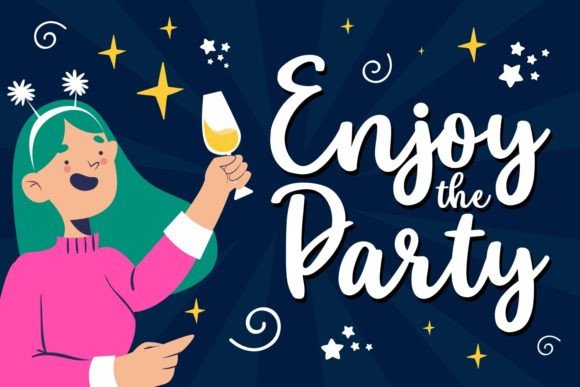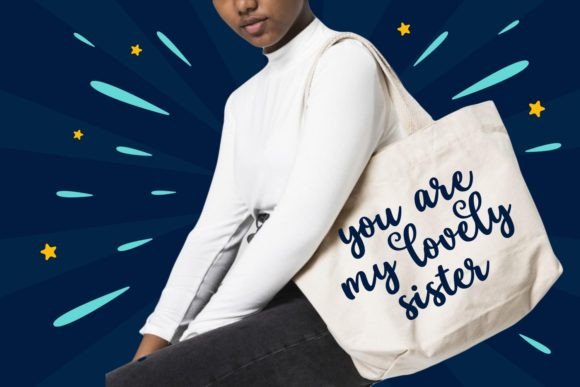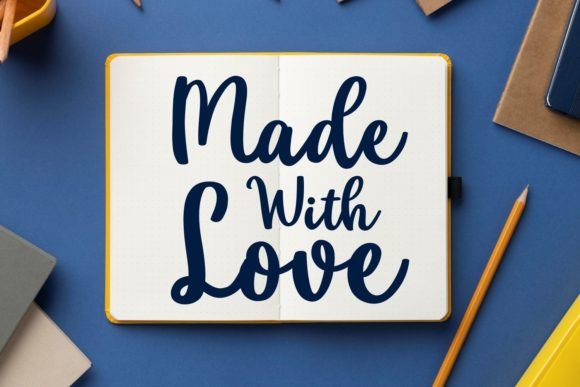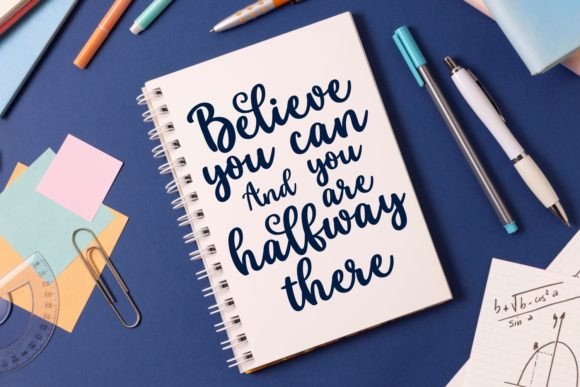
A Cheerful and Elegant Handwritten Font
New Year Holiday Font is a cheerful and elegant handwritten typeface, designed to bring a festive and joyful touch to your special occasion designs. Whether you’re creating invitations, gifts, posters, or packaging, this font brings a sense of excitement and elegance to your creative projects. Its whimsical and artistic style makes it ideal for celebrations such as New Year’s Eve, holidays, and special events, helping you design materials that feel personalized and memorable.
Perfect for Invitations and Event Stationery
For invitations and event stationery, the New Year Holiday Font adds a joyful and refined feel to your designs. Whether you’re designing wedding invitations, holiday cards, or party invites, this font brings a personalized touch that sets the mood for a celebratory event. Its handwritten style and festive nature make it ideal for invitations, flyers, RSVP cards, and thank-you notes. With its elegant flair, the New Year Holiday Font ensures your event materials stand out, capturing the festive spirit of the occasion.
Great for Flyers, Posters, and Promotional Materials
For flyers, posters, and promotional materials, the New Year Holiday Font is a fantastic option to add a fun, eye-catching appeal to your designs. Whether you’re creating promotional holiday flyers, event posters, or product packaging, this font helps convey a sense of excitement and celebration. Its stylish brush strokes and festive vibe make it perfect for promoting holiday events, special sales, or seasonal offers. The New Year Holiday Font ensures your designs feel uplifting and memorable, catching the attention of your audience.
Ideal for Gifts and Packaging
The New Year Holiday Font is perfect for gift designs and packaging. Whether you’re designing gift tags, gift wrap, or holiday product packaging, this font adds a personalized and cheerful touch to your creations. The bold and playful nature of the font ensures your packaging feels both unique and festive, perfect for holiday gifts or seasonal products. The New Year Holiday Font gives your gifts a charming and elegant appearance that helps convey your brand’s personality and the celebratory nature of the occasion.
Versatile, Legible, and Elegant
Despite its festive handwritten design, the New Year Holiday Font remains legible and easy to use. Its well-spaced characters and consistent strokes ensure your text is clear and readable, even in longer passages or smaller sizes. Whether you’re using it for headlines, captions, or body text, this font strikes the perfect balance between creativity and readability, making it ideal for a wide range of design applications, from print to digital media.
Add a Festive Touch to Your Designs with New Year Holiday Font
If you’re looking for a cheerful, elegant handwritten font that adds a fun and celebratory touch to your designs, the New Year Holiday Font is the perfect choice. Whether you’re designing invitations, flyers, packaging, or social media content, this font brings a joyful, timeless feel to your work. Let the New Year Holiday Font help you create memorable, festive designs that capture the spirit of celebration.